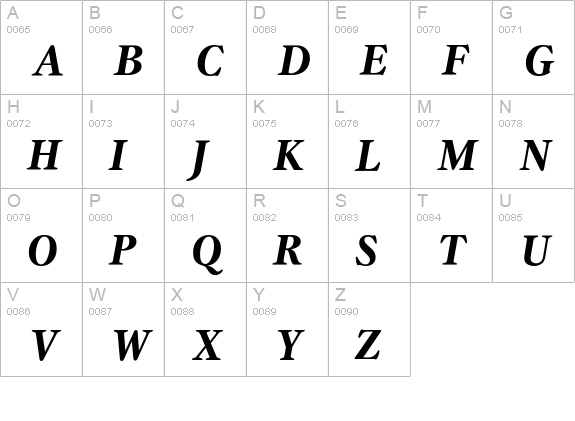
Gamma Bold Italic is a strong, high-contrast, italic variant in the Gamma typeface family \xE2\x80\x94 well suited to headlines, attention-grabbing titles, and strong calls-to-action.
Gamma Bold Italic font is a stunning typeface that exudes elegance and sophistication. Its bold and slanted characters create a unique and captivating visual experience. The letters possess a sense of strength and confidence, making it perfect for headings, titles, and any design that requires a touch of boldness. This font's refined curves and sleek strokes give it a modern yet timeless look. It effortlessly combines the strength of a bold font with the stylish flair of italics, resulting in a harmonious balance that catches the eye and commands attention. Gamma Bold Italic font is versatile and adaptable, capable of enhancing a wide range of creative projects. One of the most appealing aspects of Gamma Bold Italic font is that it is freely available for download at FontsMarket.com. This means that designers and typographers can easily access and utilize this remarkable typeface without any restrictions. Its availability for free allows for more creativity and accessibility, making it a valuable asset in the design community. Whether you are working on a branding project, creating eye-catching advertisements, designing a website, or crafting visually stunning graphics, Gamma Bold Italic font will elevate your work to new heights. Its boldness and italicized charm will add a touch of sophistication and professionalism to your designs, making them stand out from the crowd. With Gamma Bold Italic font, you have the power to make a bold statement and leave a lasting impression. So why wait? Download this exceptional typeface for free at FontsMarket.com and let your creativity soar.